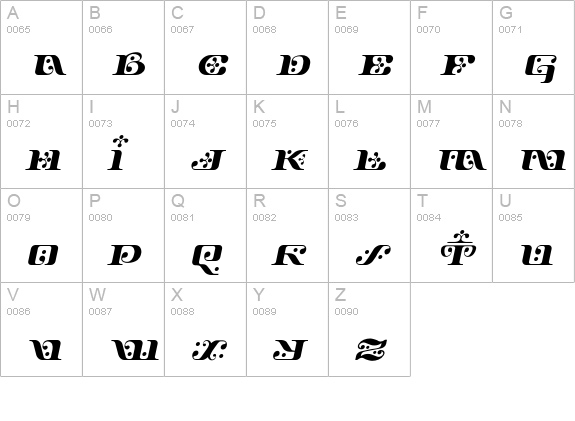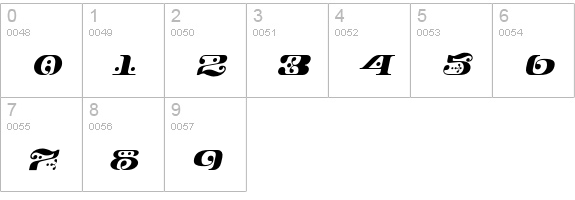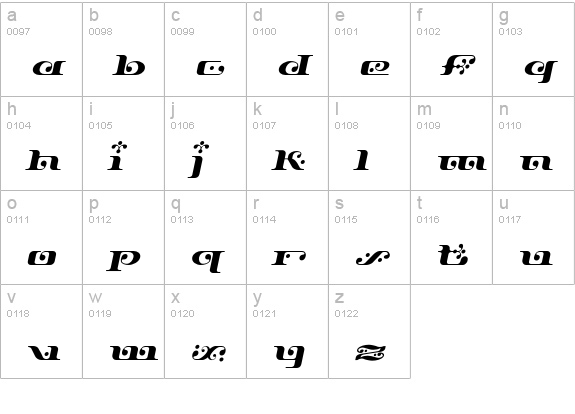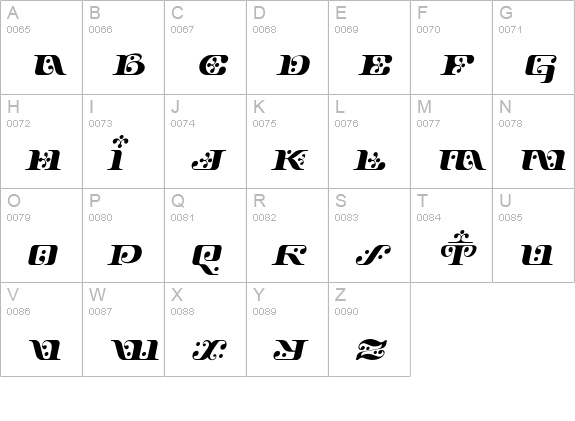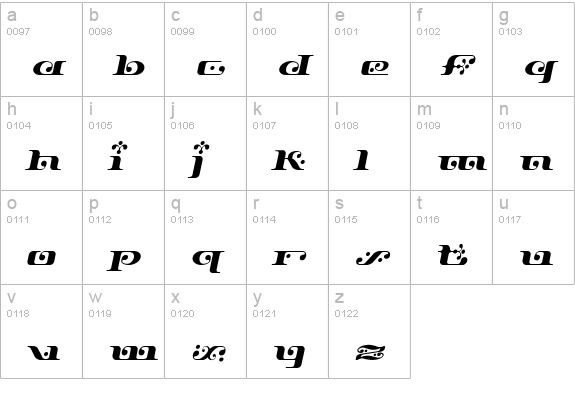
Django-Oblique Font Details
Django-Oblique is a distinctive, italic variant in the Django typeface family \xE2\x80\x94 well suited to design and typography projects.
Django-Oblique is a modern and stylish font that adds a touch of sophistication to any design project. Its slanted style exudes a sense of elegance and creativity, making it perfect for branding, logos, titles, and more. The sleek and streamlined look of Django-Oblique is sure to captivate your audience and leave a lasting impression. This versatile font is freely available to download at FontsMarket.com, making it easily accessible for designers and creatives looking to elevate their work. Whether you're working on a print or digital project, Django-Oblique's clean lines and unique personality will help your designs stand out from the crowd. Embrace the power of this free font and unlock a world of possibilities for your creative endeavors.